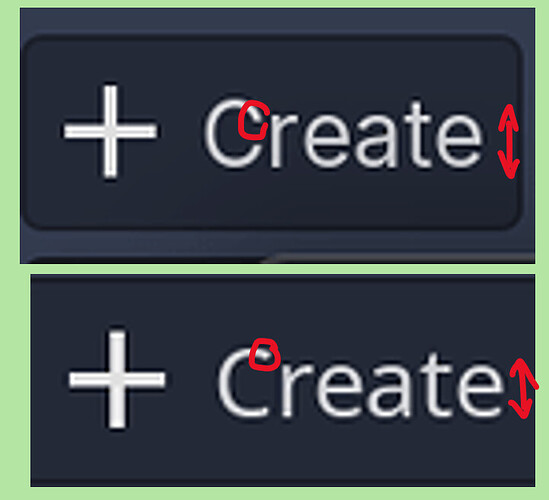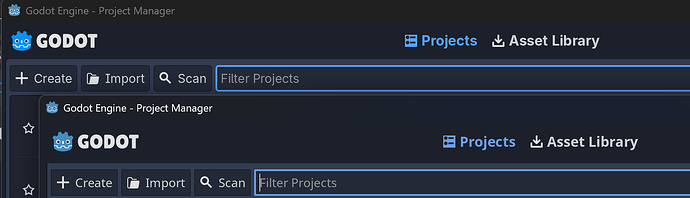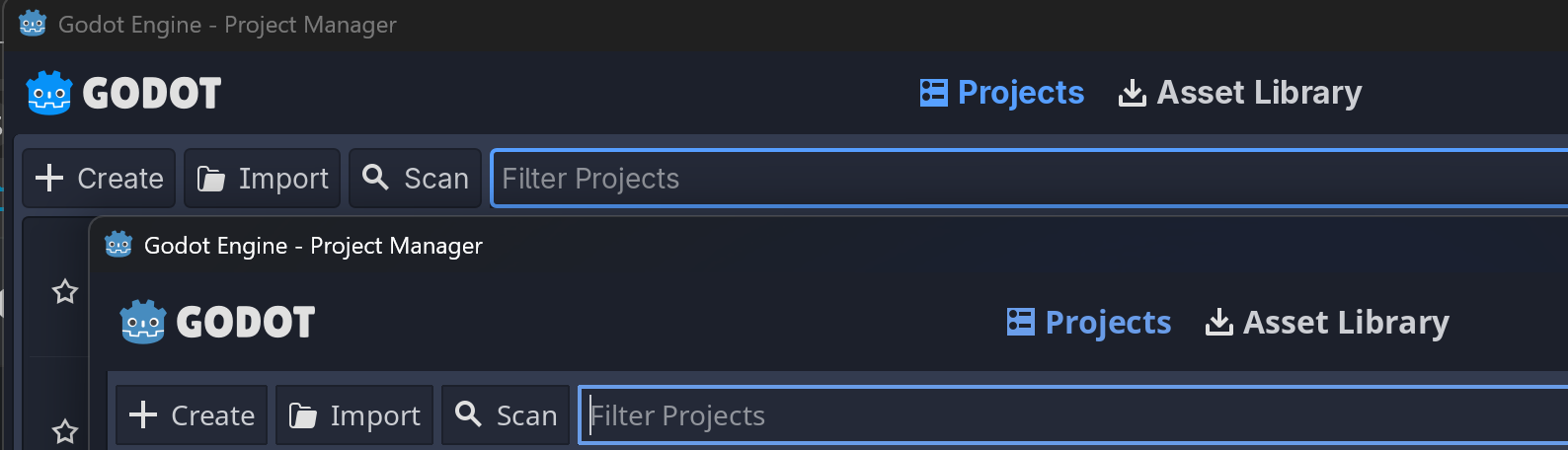
Godot 4.6 introduced a grand new UI theme with a lot of changes in editor appearance as well as the default editor font.
In this screenshot, the upper UI is 4.6 while the lower is 4.5
The new theme is good itself,
However, I really miss the font in 4.5, and is wondering whether I can change it back through some editor settings or so.
Currently I believe I can realize it by applying a custom Main Font in the setting, but I don’t know which font was used back in the 4.5.
Uh… I’m sorry, but I really don’t see any difference in the font.
Do you have any more examples?
Take this as an example, the upper is 4.6 and the lower 4.5:
The shapes of letters are changed. For example, the letter ‘C‘ gets longer ends as is circled above in 4.6 than in 4.5.
Also, all the letters seem to be slimer in 4.6 than 4.5 with shorter widths and longer heights. The 4.5 font seems softer and rounder
These are small changes indeed, but together they make a difference, and I’m not getting used to it for now
You have to compile the whole engine, I guess.
But there should be something to be changed before recompiling, otherwise I’ll only get the same result as the prebuilt one in github releases I think?
yeah you have to change the font,I updated my post
But I’ll try to change the editor setting first as recompiling takes much time
The PR related is Use Inter as the default editor font, features enabled by DeeJayLSP · Pull Request #111140 · godotengine/godot · GitHub which moved the default font Noto Sans to Inter .
I think I’ll just need to set it back:
and it works!
Yes in editor theme change the theme to classic from modern